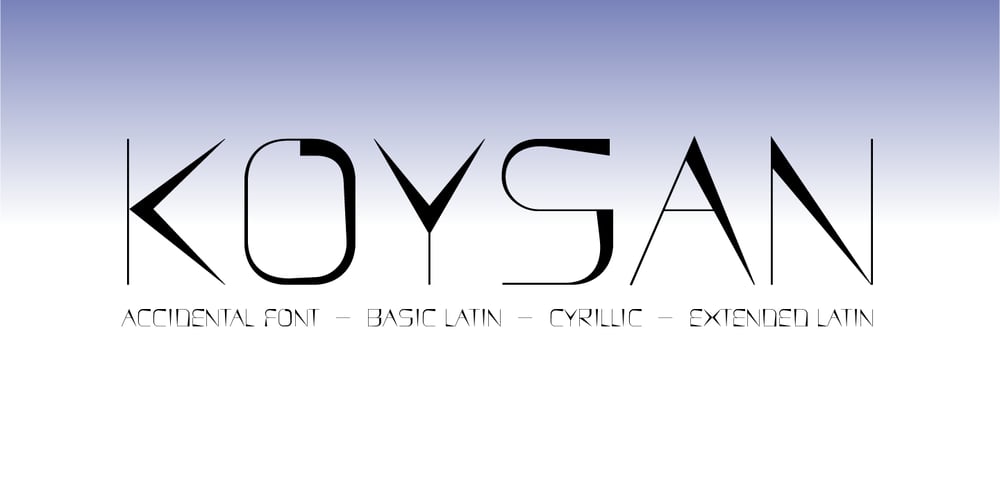
Koysan
Koysan font
Koysan Font Family was designed by Victor Pesotsky and published by Pesotsky Victor. Koysan contains 1 styles and family package options. Koysan is made for vivid headings, but it can also be used to type small paragraphs and texts. In a text set, it gives sharp, barbed textures, but compensates with half-ovals. The font combines the linear counteraction of thin vertical and horizontal lines with sharp and rigid strokes and smooth geometric ovals.Koysan supports Basic Latin, Extended latin and Cyrillic. Font designed by Victor Pesotsky.